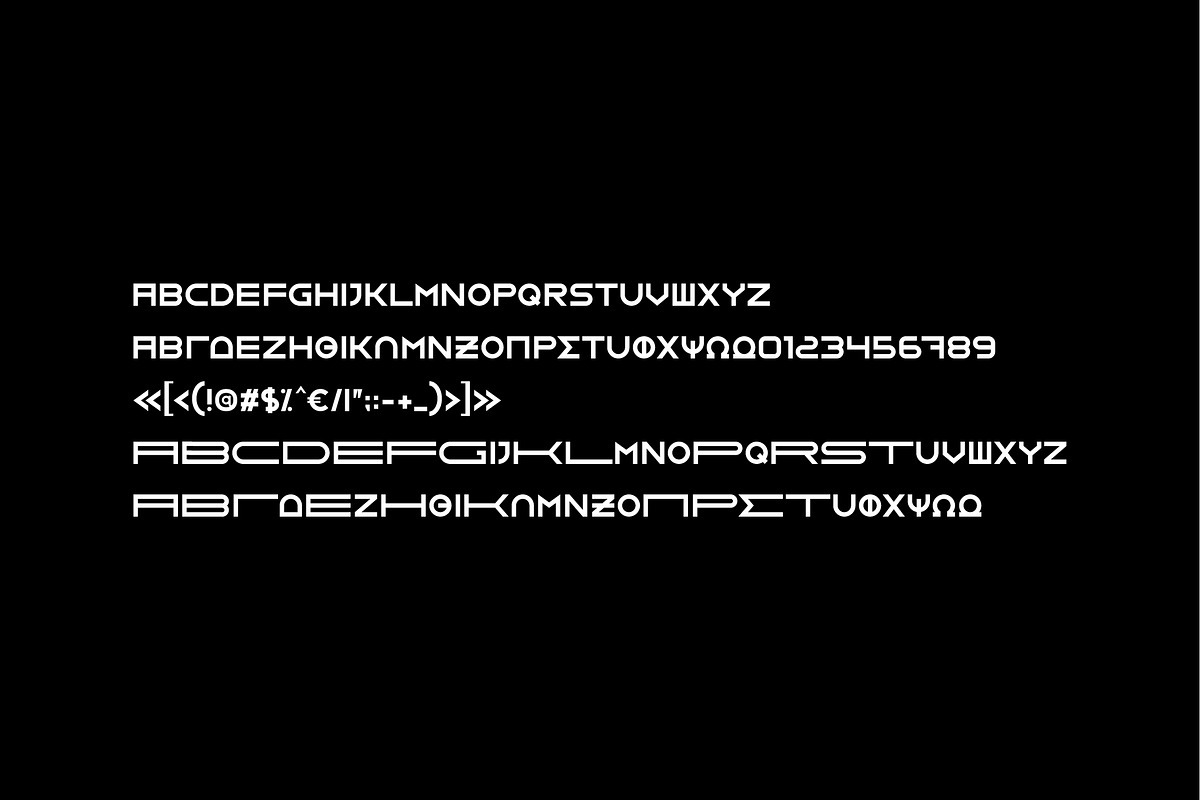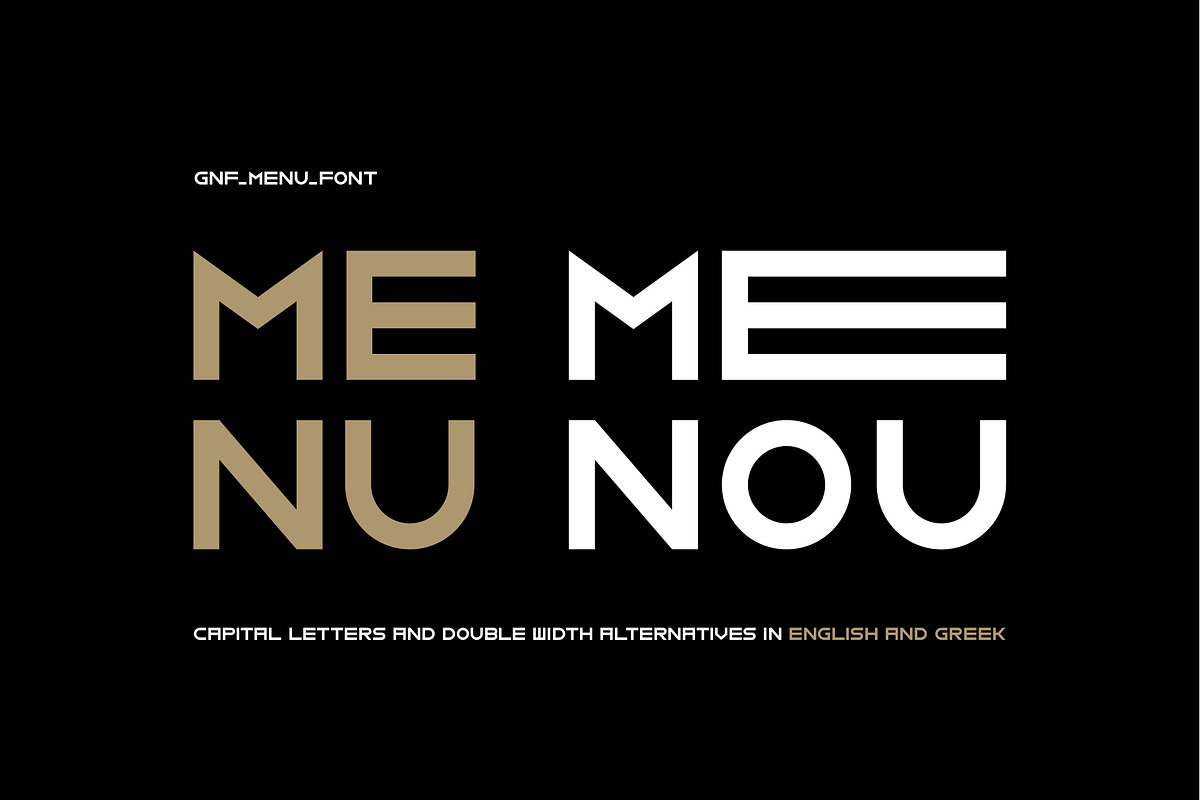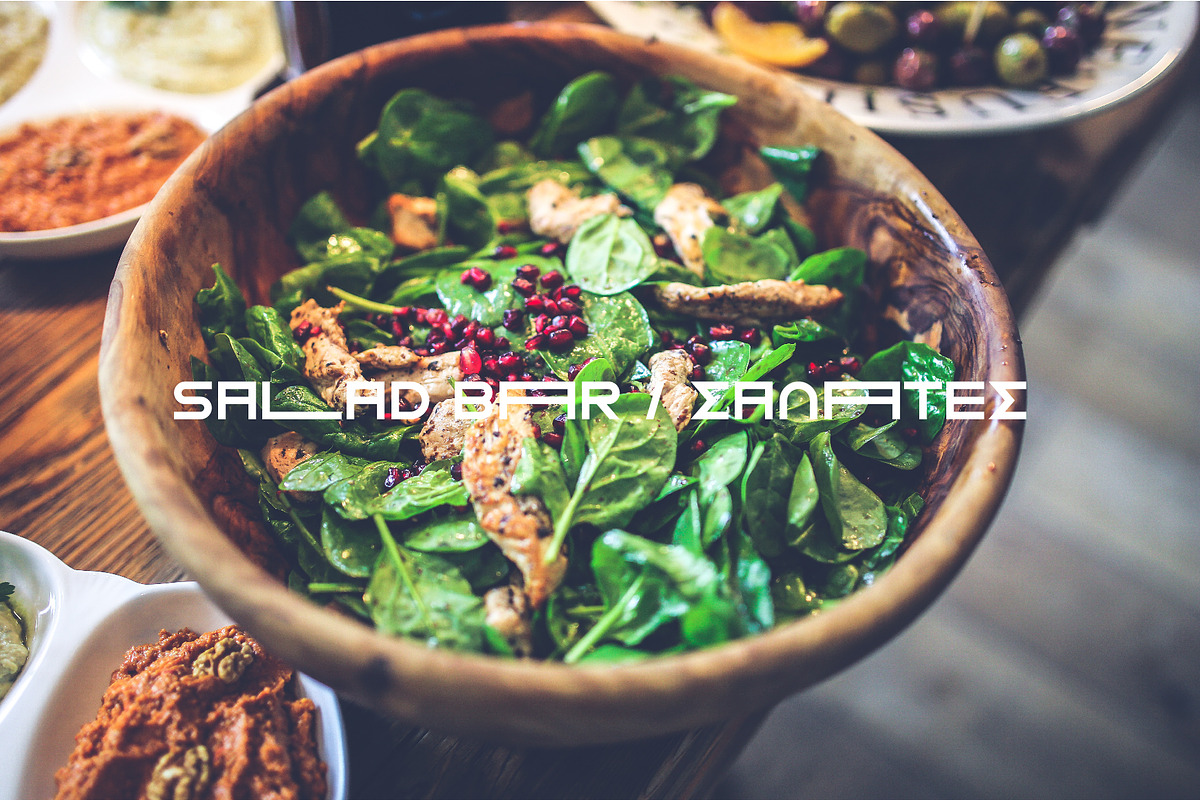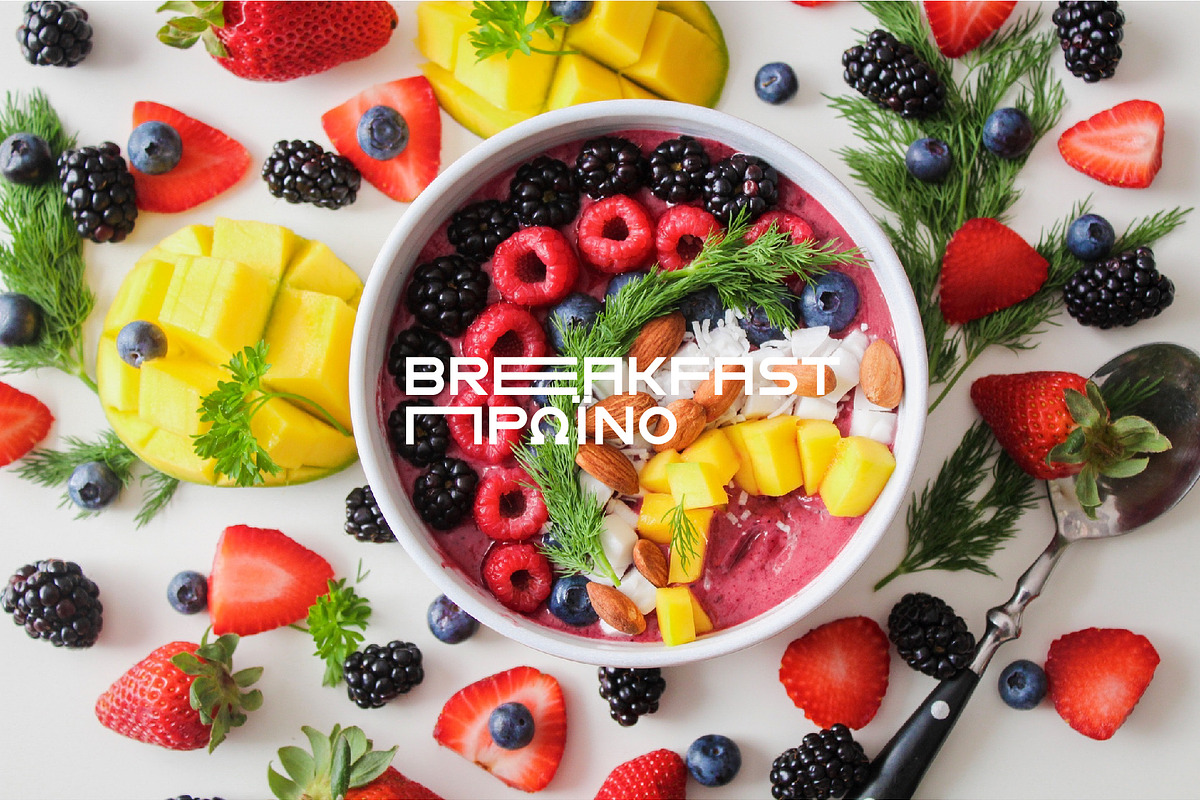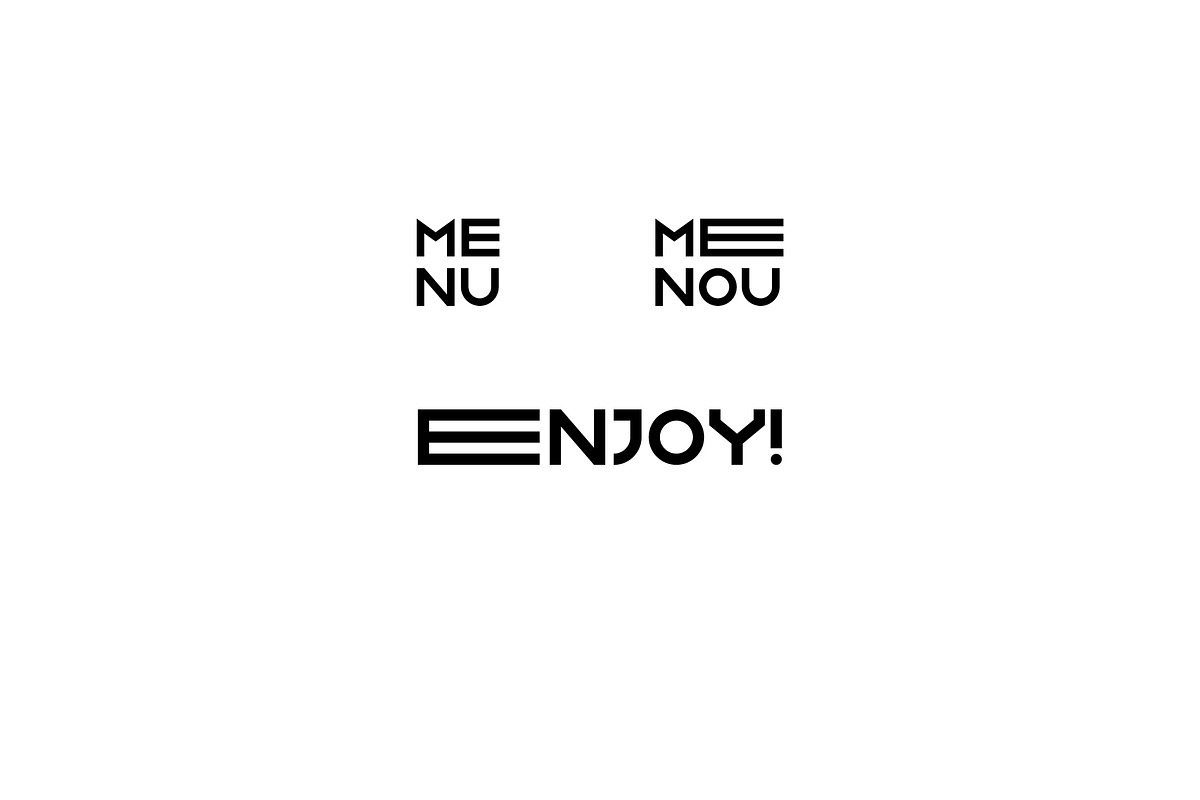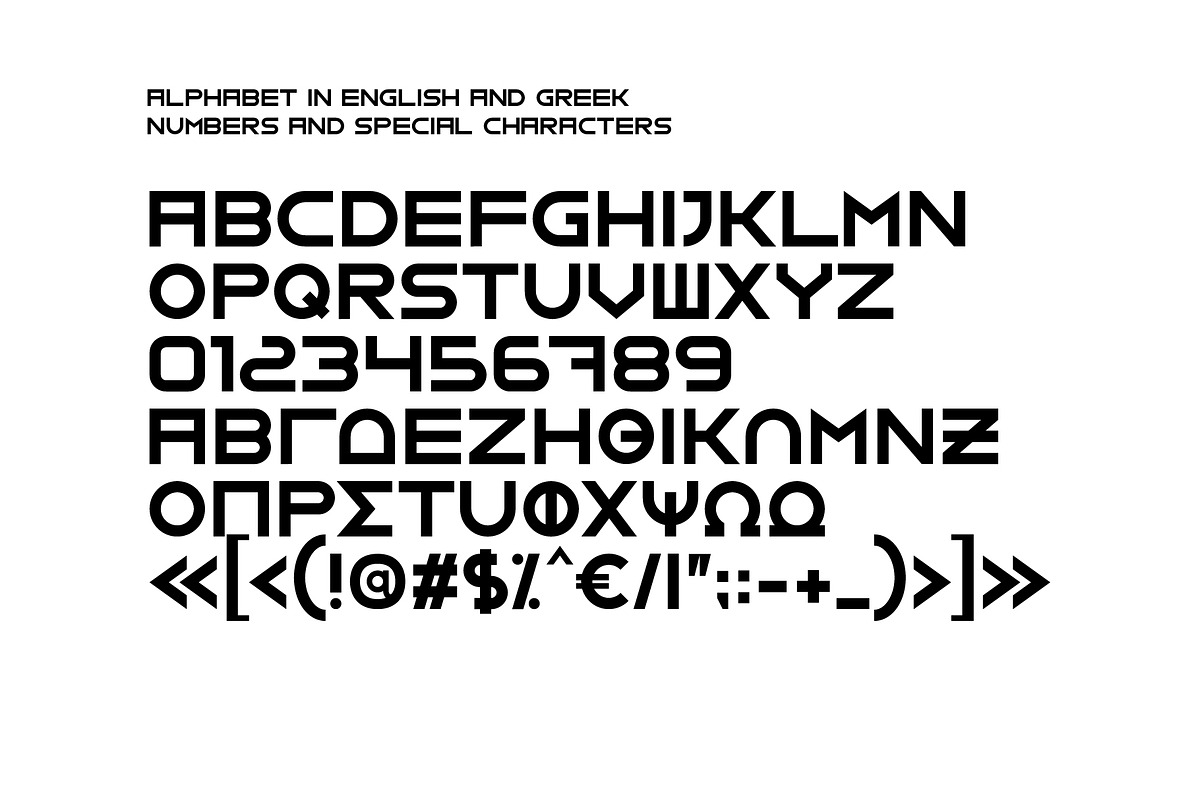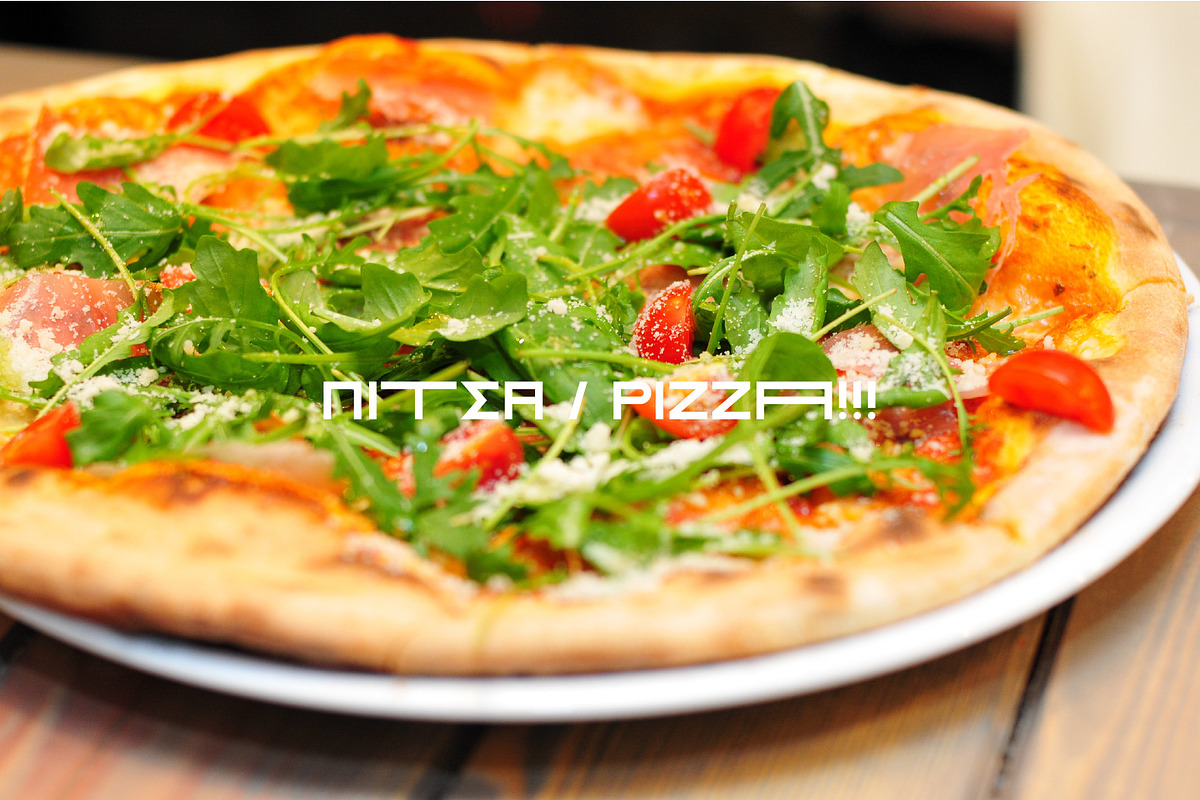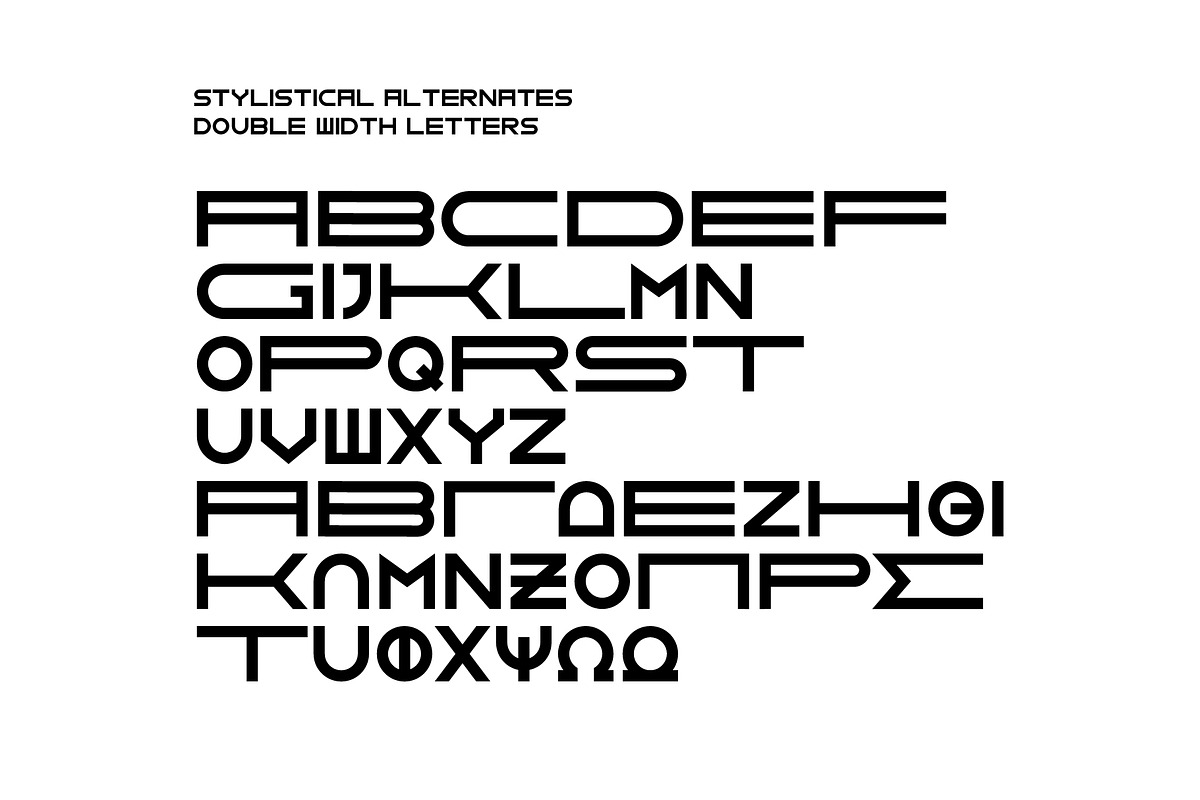
GNF-MENU bold display font
CAPITAL GREEK & ENGLISH letters, numbers, special characters and double width alternatives of some letters.
GNF-MENU bold display font by george.nikolaidis fits naturally into Branding, posters, packaging, typography.